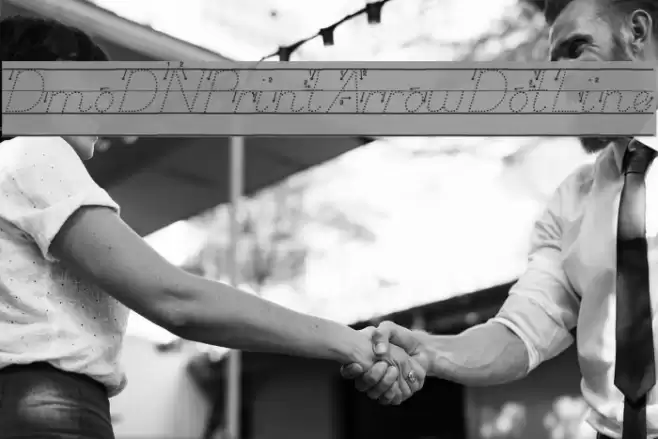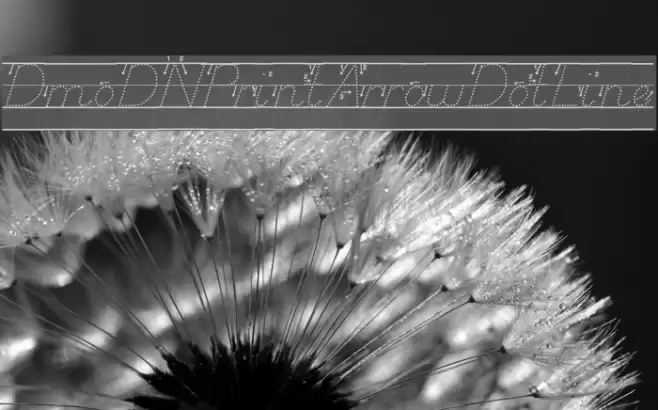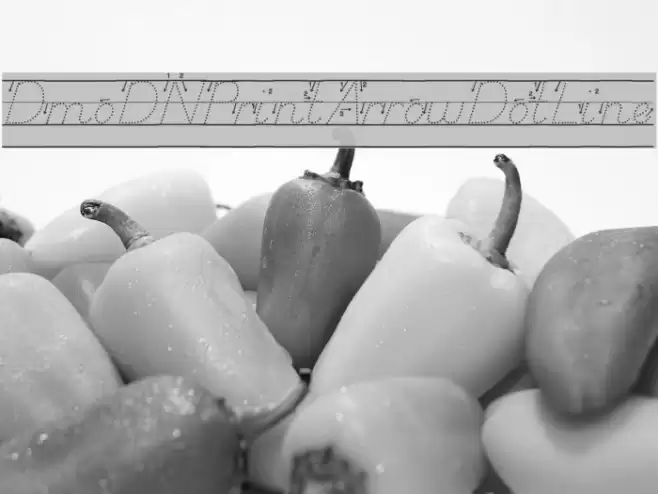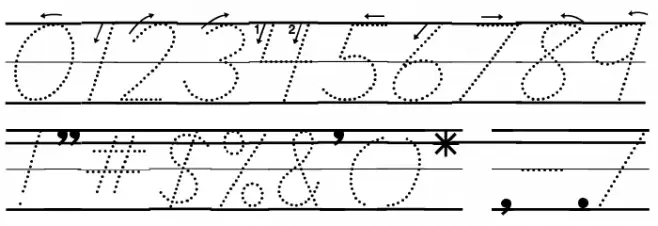
DmoDNPrintArrowDotLine Font
DmoDNPrintArrowDotLine Description
This font is designed as a dotted guide for handwriting practice, featuring both uppercase and lowercase letters, numbers, and a selection of special characters. Each character is composed of dots with directional arrows and numbers indicating the correct stroke order and direction, making it ideal for educational purposes. The style is reminiscent of traditional cursive handwriting, with a slight slant and smooth, flowing curves. The dotted lines provide a clear path for learners to follow, aiding in the development of consistent and legible handwriting skills.
A dotted guide font for handwriting practice with directional cues from Uncategorized fonts.
- Proposed Projects: Ideal for educational materials, handwriting worksheets, and practice books for children or adults learning cursive writing.
- Overall Style: Educational
- Use Case: Handwriting practice, educational materials.